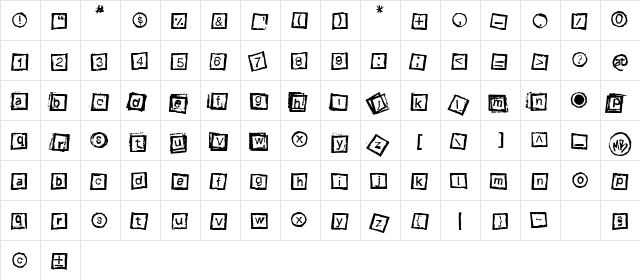
Bloktype Regular
Design Context for Bloktype Typeface
Bloktype is a composed and adaptable typeface that performs quietly and consistently across a wide range of design contexts.